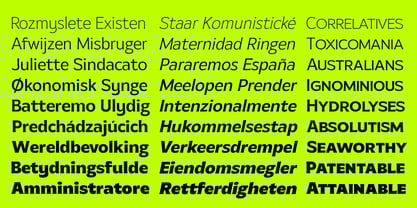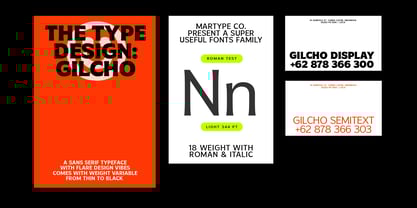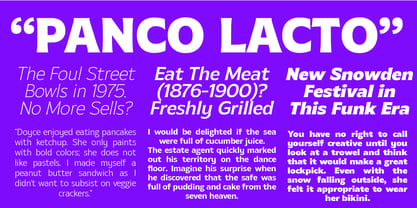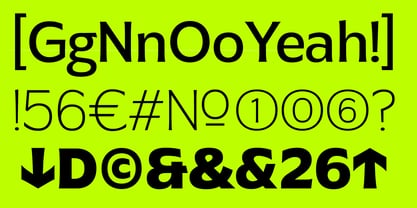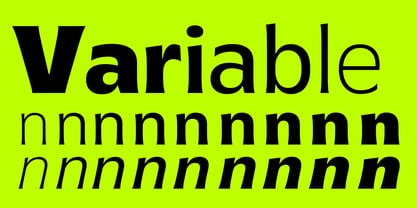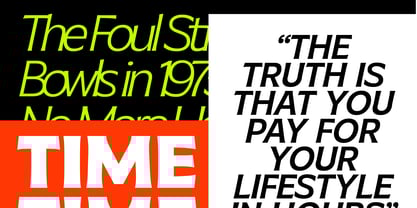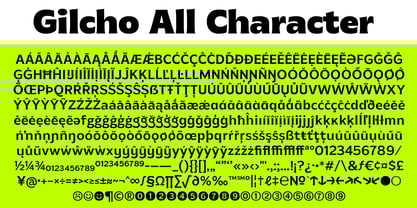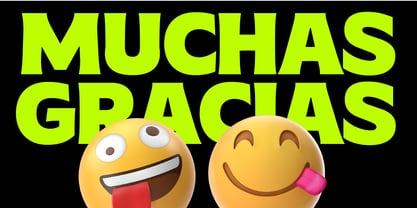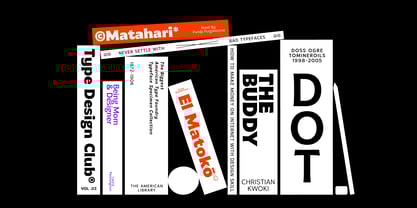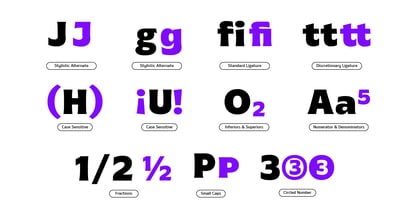
MTC Gilcho
by Martype co
The MTC Gilcho Font Family was designed by Umar Al Farouq and published by Martype co. MTC Gilcho contains 18 styles and family package options.
MTC Gilcho Flare is a versatile variable font ideal for both display and text applications. With 18 weights and 2 styles—Roman and Italic—it enhances your design flexibility across various media. This font provides a seamless visual communication experience, striking a balance between large display sizes and smaller text sizes. It masterfully combines fun and serious vibes, offering a rich canvas for graphic exploration. Inspired by a blend of sans serif and serif styles, this font features distinct flares and subtle serifs, presenting a bold and expressive character suitable for impactful posters. Its range, from thin to black weights, makes it adaptable for diverse design contexts, infused with funky and chunky aesthetics that elevate any project.